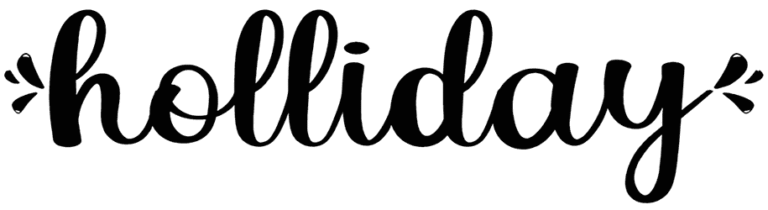
After Christmas Font
After Christmas is a funny Christmas font with a cute and playful tone. It includes a complete set of uppercase, lowercase, numbers, and punctuation. This font has a curly texture and might be a bit unreadable in context…
After Christmas is a funny Christmas font with a cute and playful tone. It includes a complete set of uppercase, lowercase, numbers, and punctuation. This font has a curly texture and might be a bit unreadable in context. You can use this font in a wide range of projects such as holiday invitations, gifts, posters, book covers, product packaging, and so on.